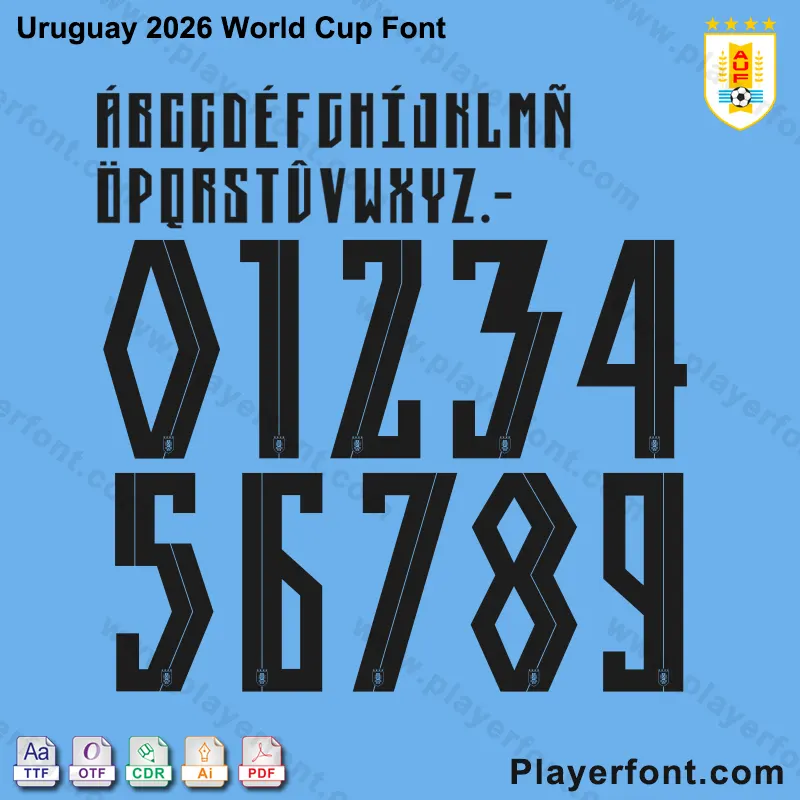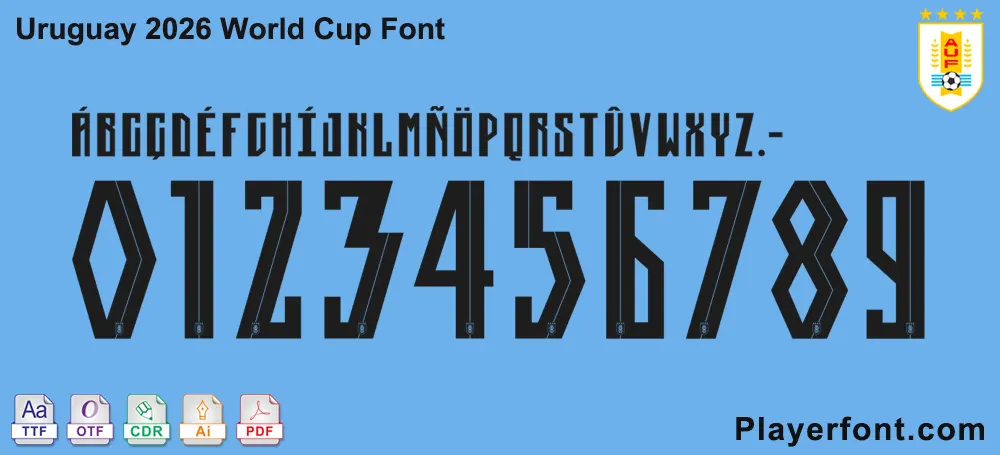
Get the authentic look of La Celeste! This Uruguay 2026 World Cup Font kit includes the complete alphabet and numbering system used for the upcoming tournament. Perfect for custom jersey printing, social media graphics, and creative sports branding. High-quality vector files ensure crisp scaling for any size.
Elevate Your Designs with the Uruguay 2026 World Cup Font
Full character set and numbering of the Uruguay 2026 World Cup font in black on sky blue background.
Complete alphabet and number preview for the Uruguay 2026 kit.
Are you ready for the biggest stage in football? Our Uruguay 2026 World Cup Font package provides everything you need to recreate the iconic look of the Uruguayan National Team (AUF). This font features the distinct, sharp geometric style and inline detailing seen on the latest international kits.
• Full Character Set: Includes all uppercase letters (with Spanish accents like Γ‘ and Á), numbers 0-9, and punctuation marks.
Uruguay 2026 World Cup font download preview showing letters and large numbers in vector format.Uruguay 2026 World Cup Font Kit Download